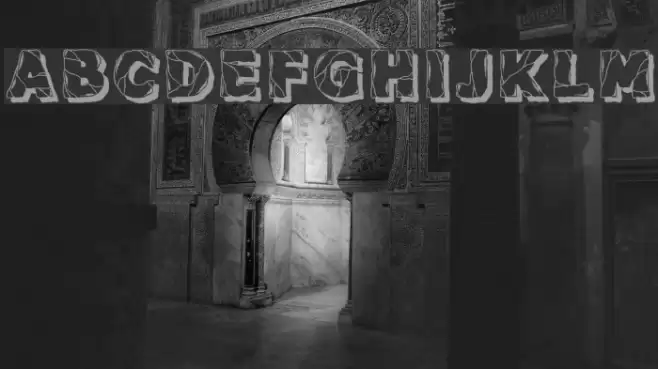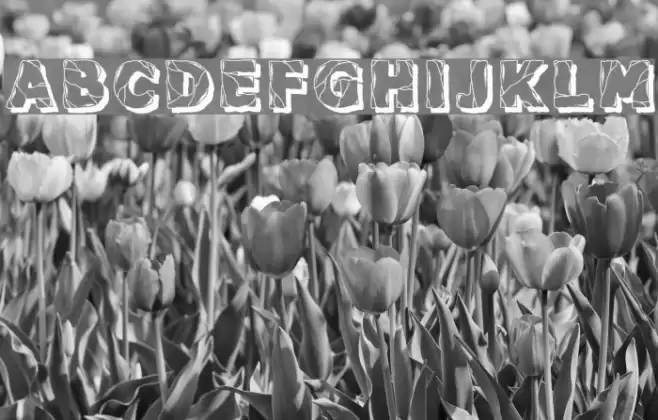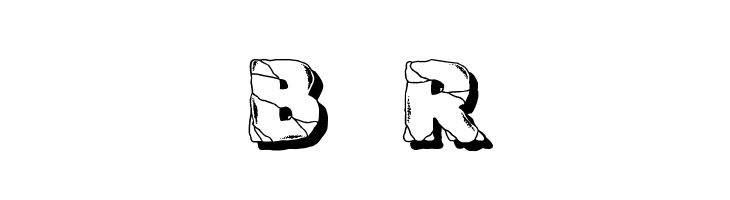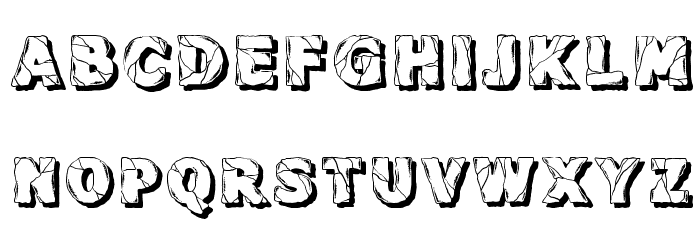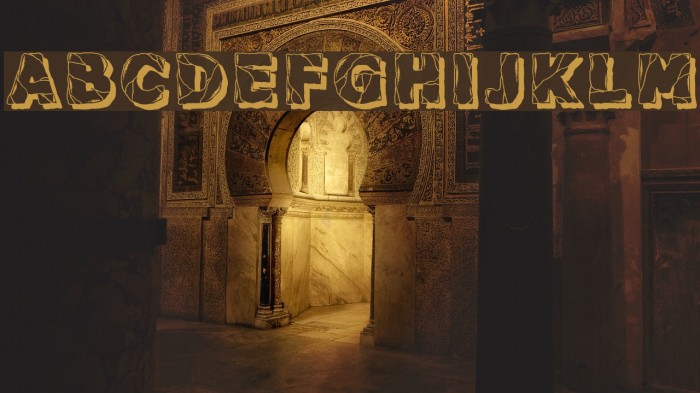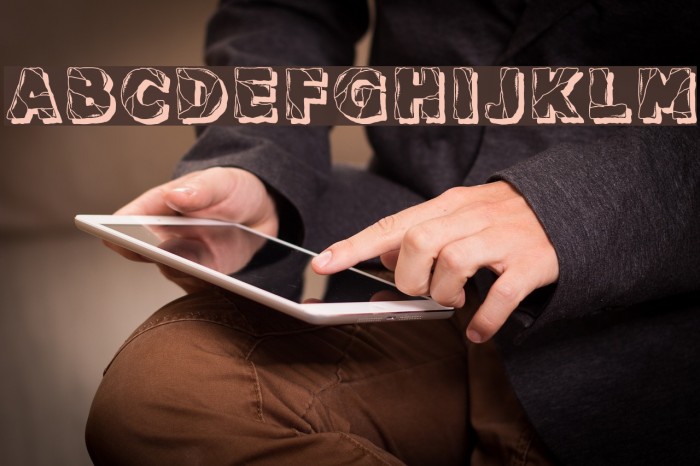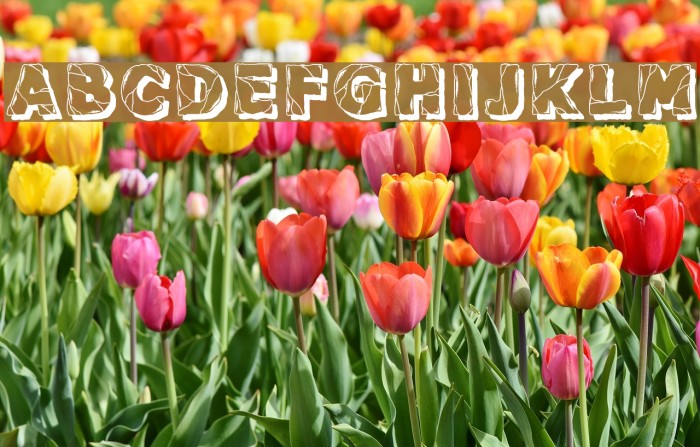
Backtrack Regular Font
Backtrack Regular Description
This font features a bold, decorative style with a rugged, textured appearance. Each character is designed with a unique, hand-drawn look that gives an impression of being carved or etched. The letters have a three-dimensional effect, with shadows and highlights that add depth and interest. The overall design is eye-catching and dynamic, making it suitable for creative projects that require a strong visual impact. The uppercase letters are consistent in height and width, providing a uniform look across the alphabet. The font's intricate detailing and artistic flair make it ideal for use in designs that aim to stand out and capture attention.
A bold, textured, and decorative font with a hand-drawn, three-dimensional appearance from Uncategorized fonts.
- Proposed Projects: Ideal for posters, album covers, branding, and any project needing a bold, artistic touch.